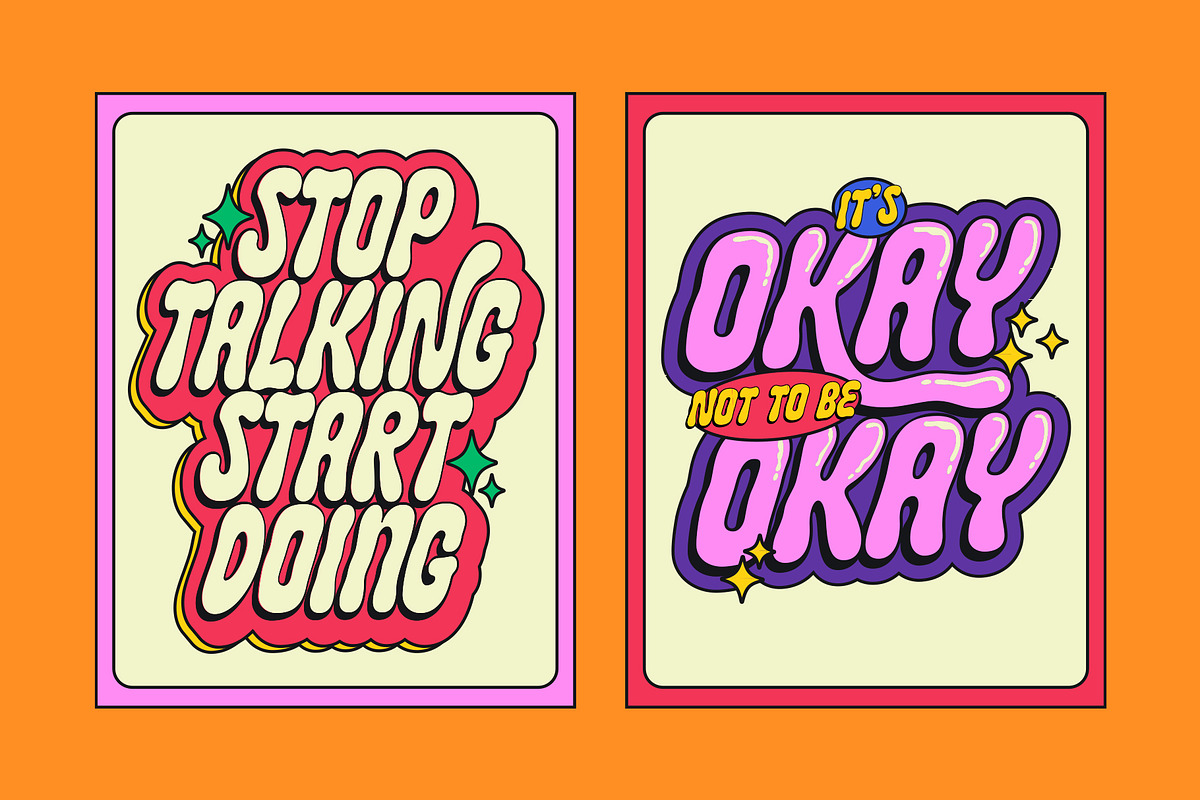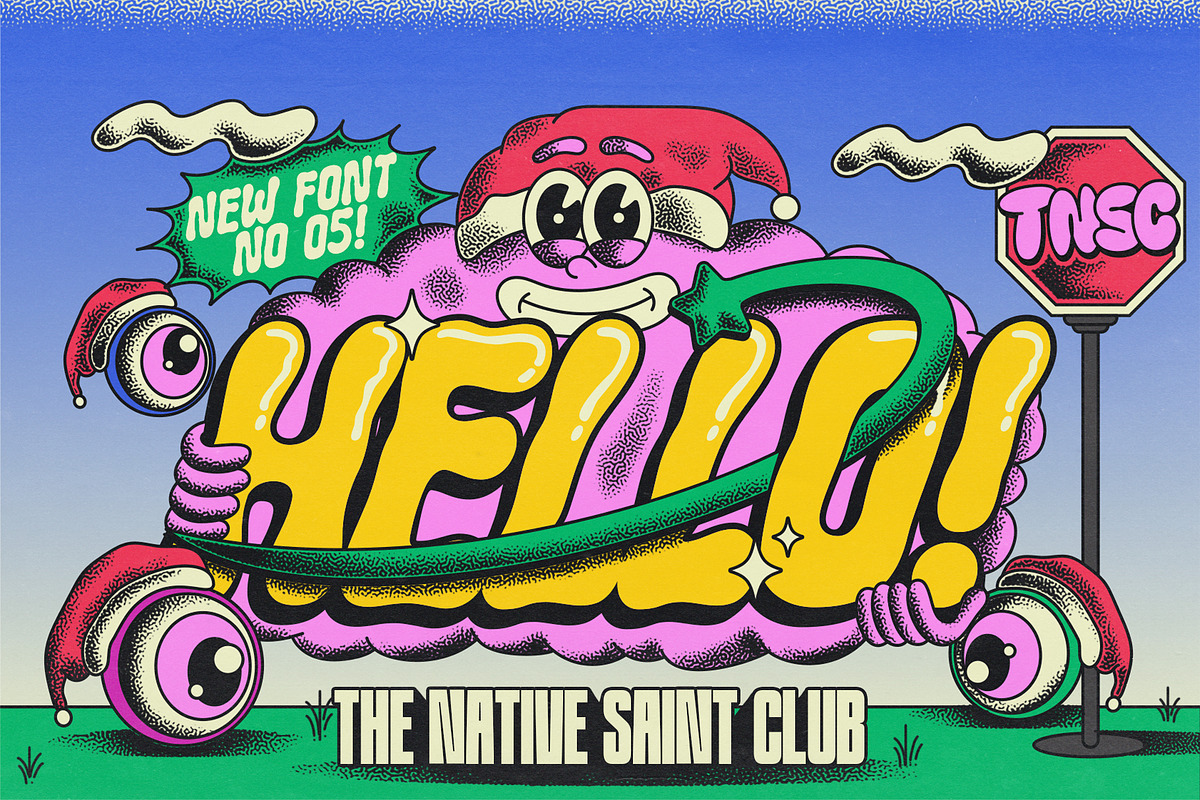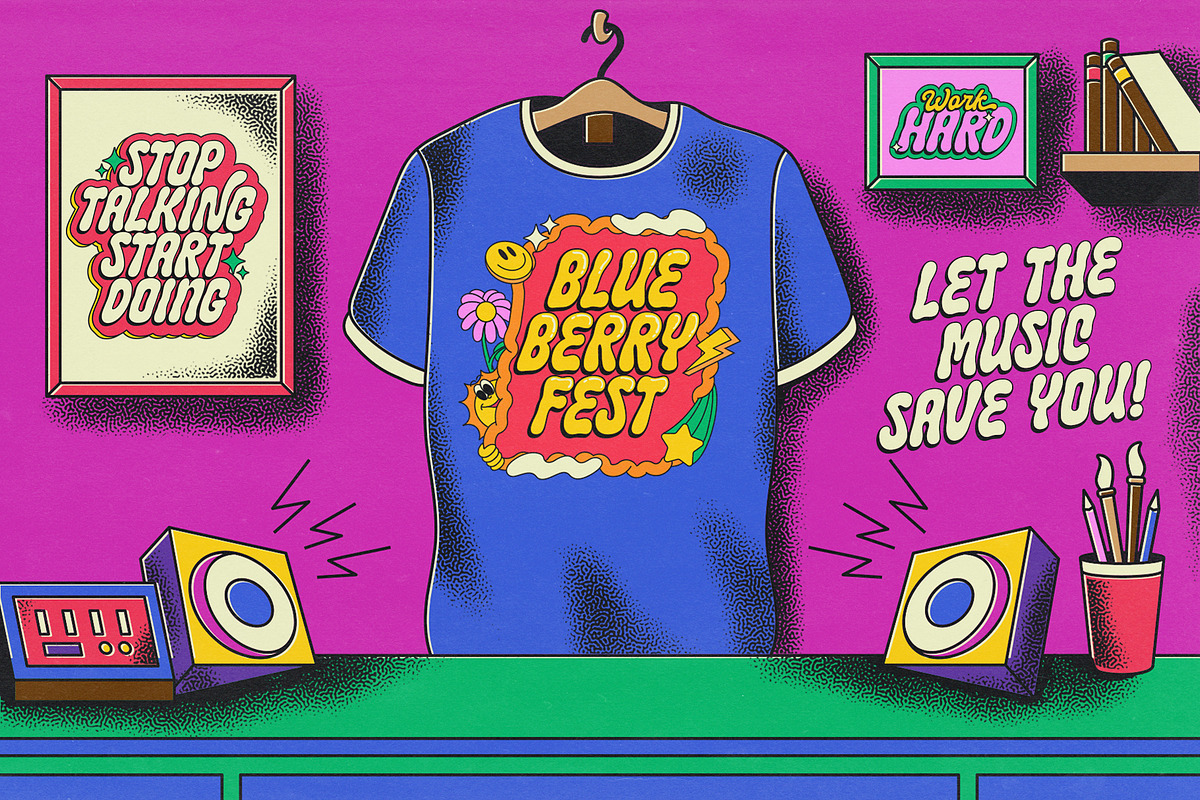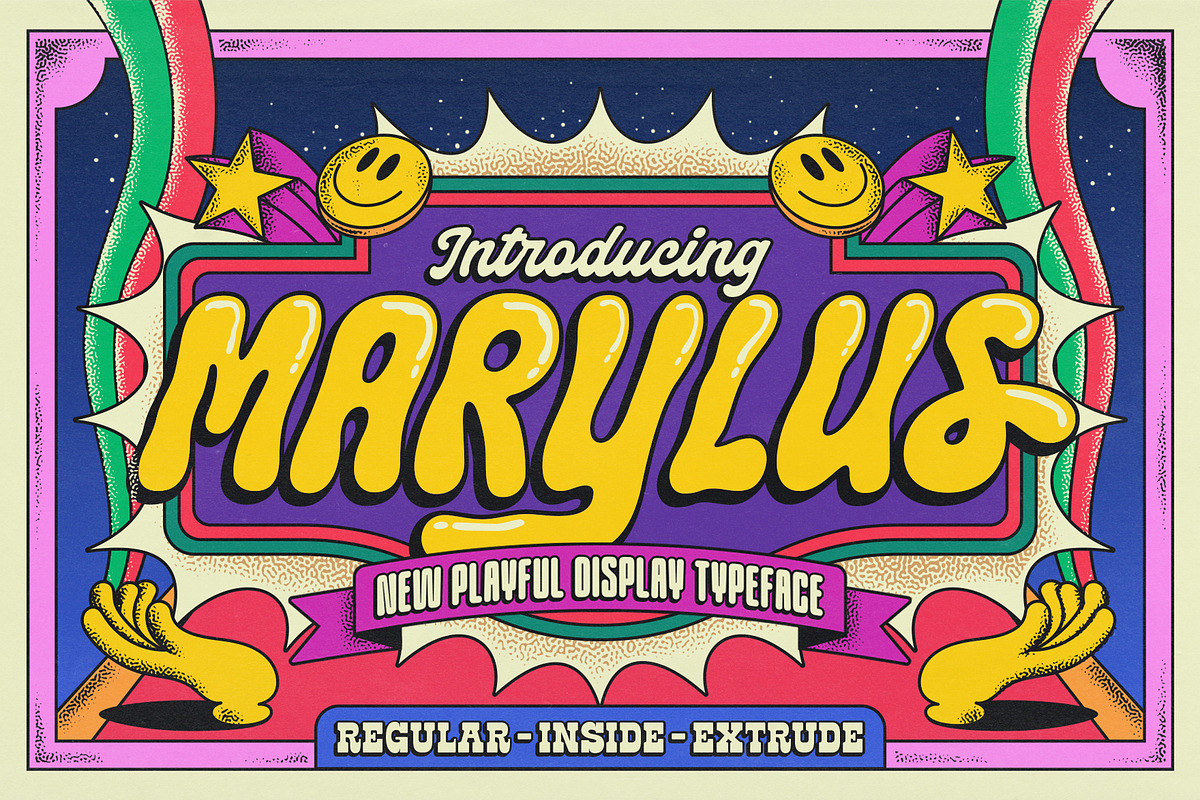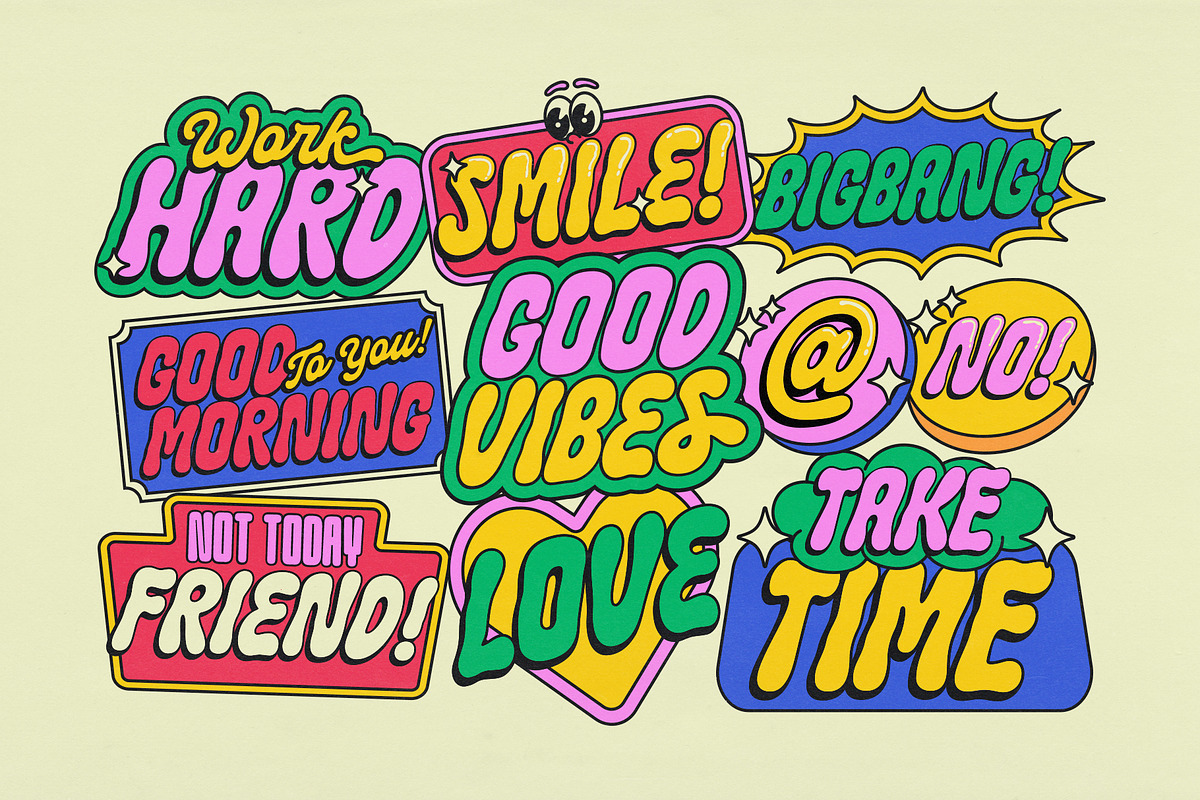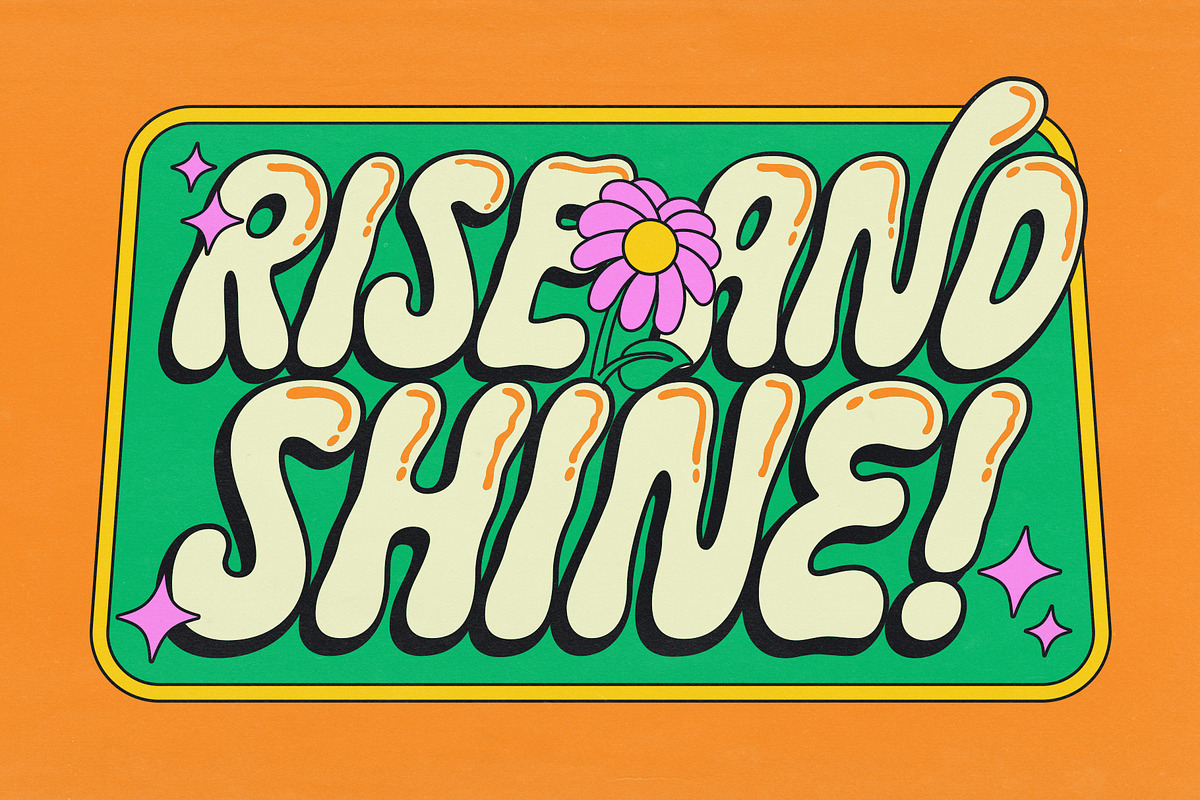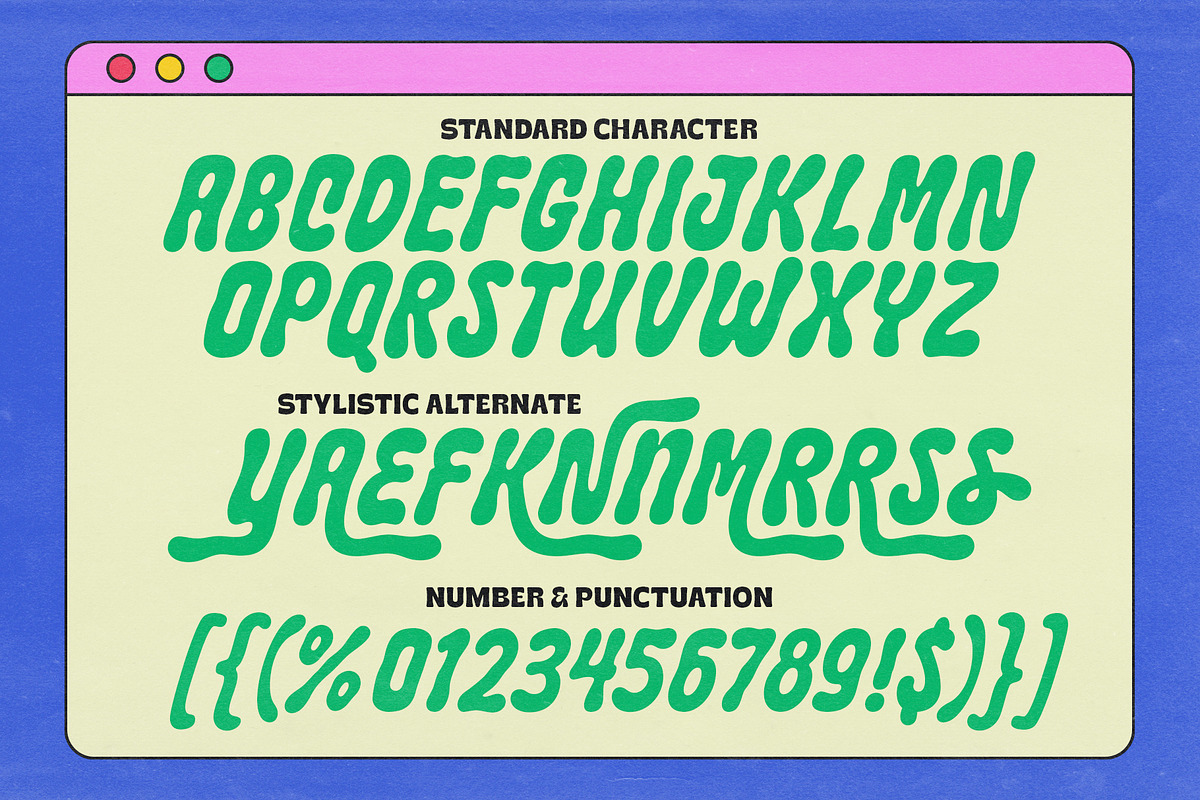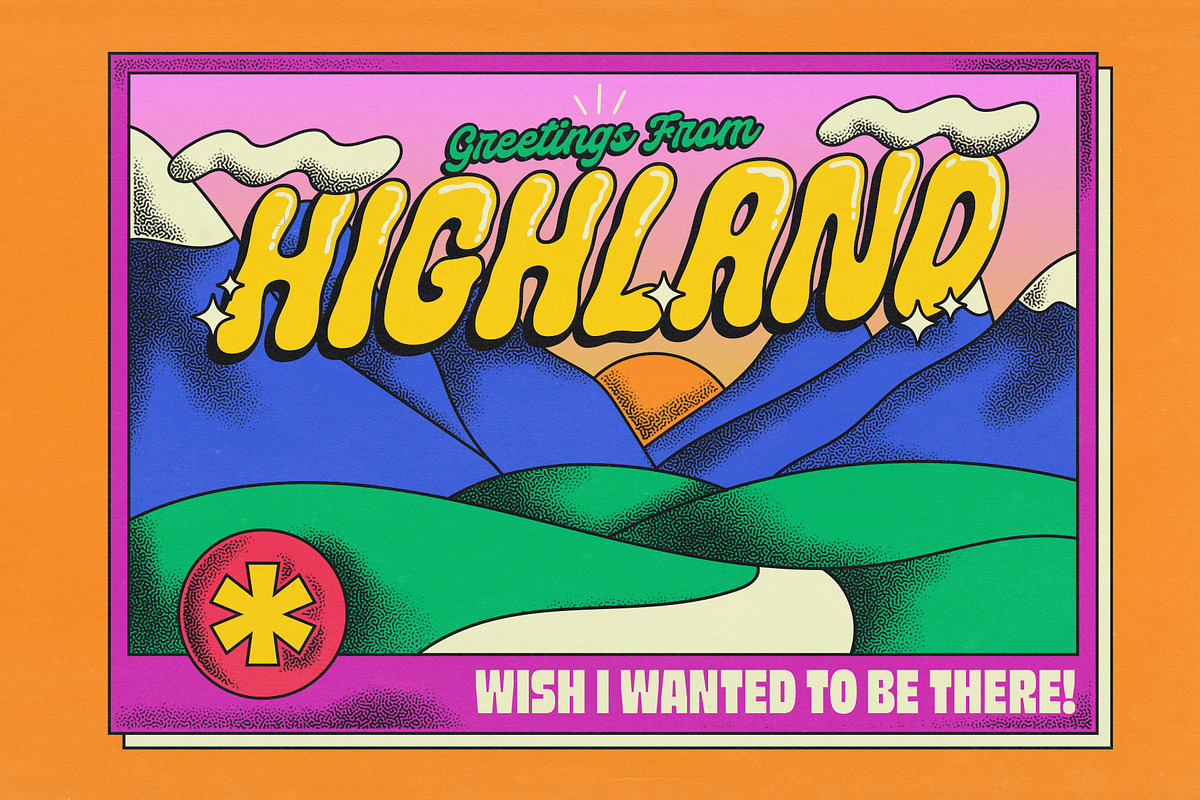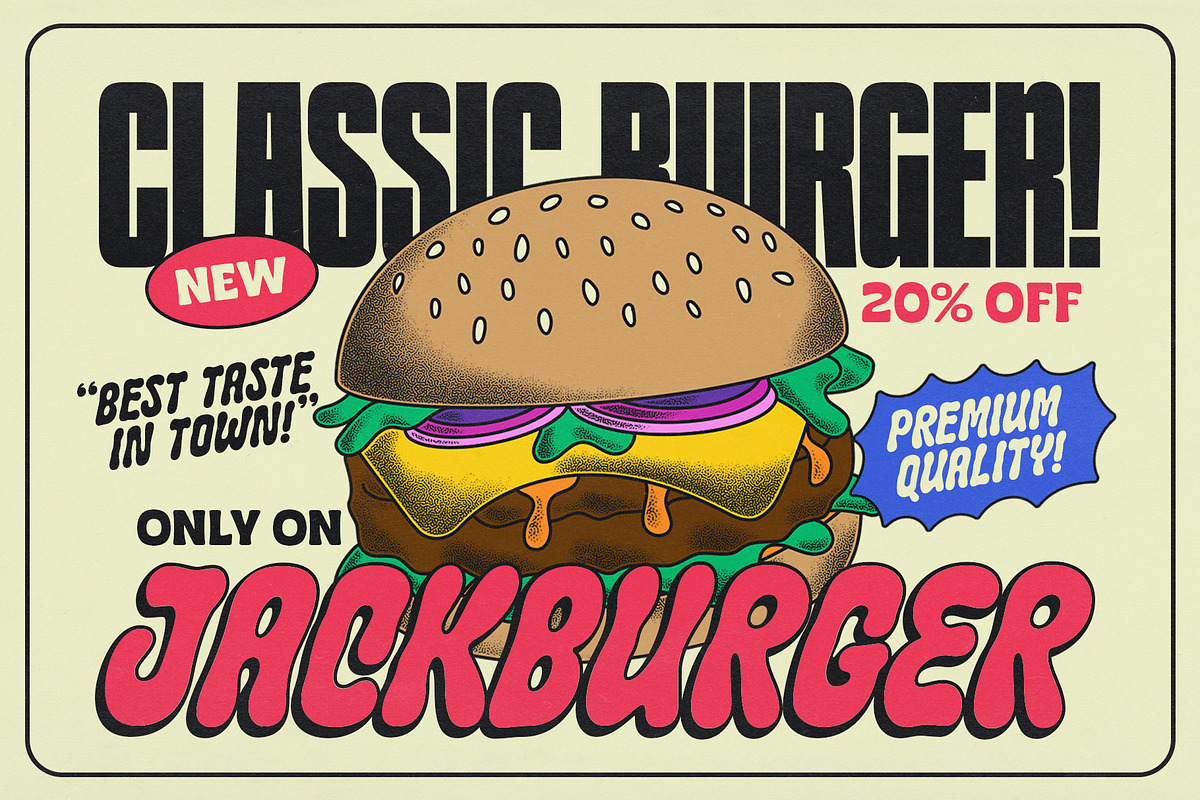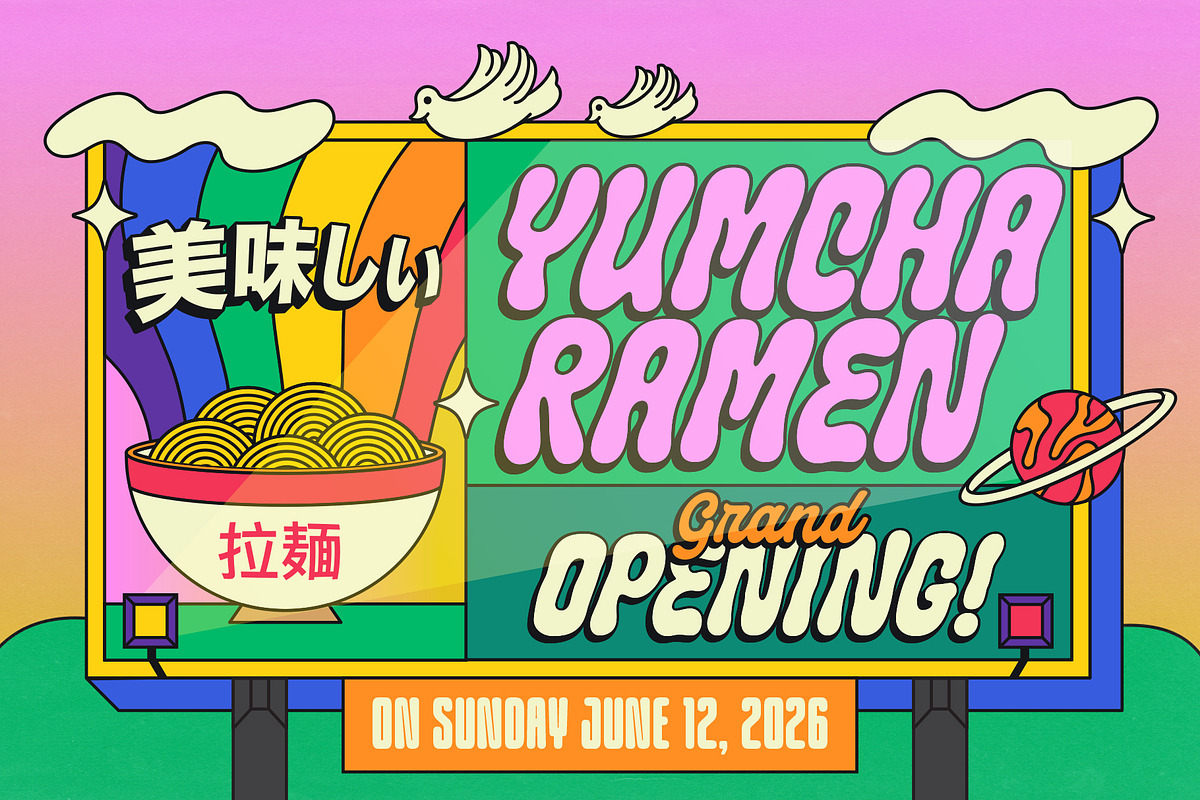
TNSC Marylus - Playful Display
TNSC Marylus is a playful display font. Inspired by old pop art posters and book covers. Marylus invites you to reminisce with a retro pop feel. Perfect for posters, magazines, stickers, merchandise, packaging, special events and much more!